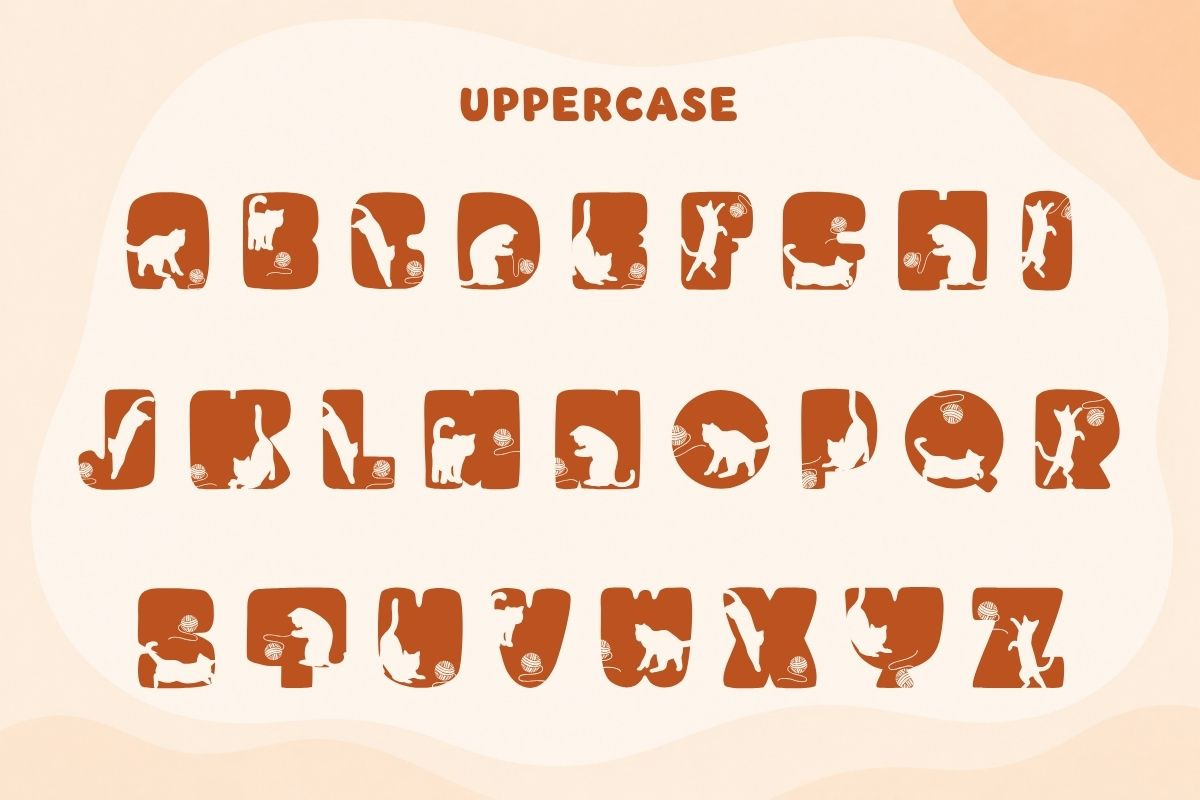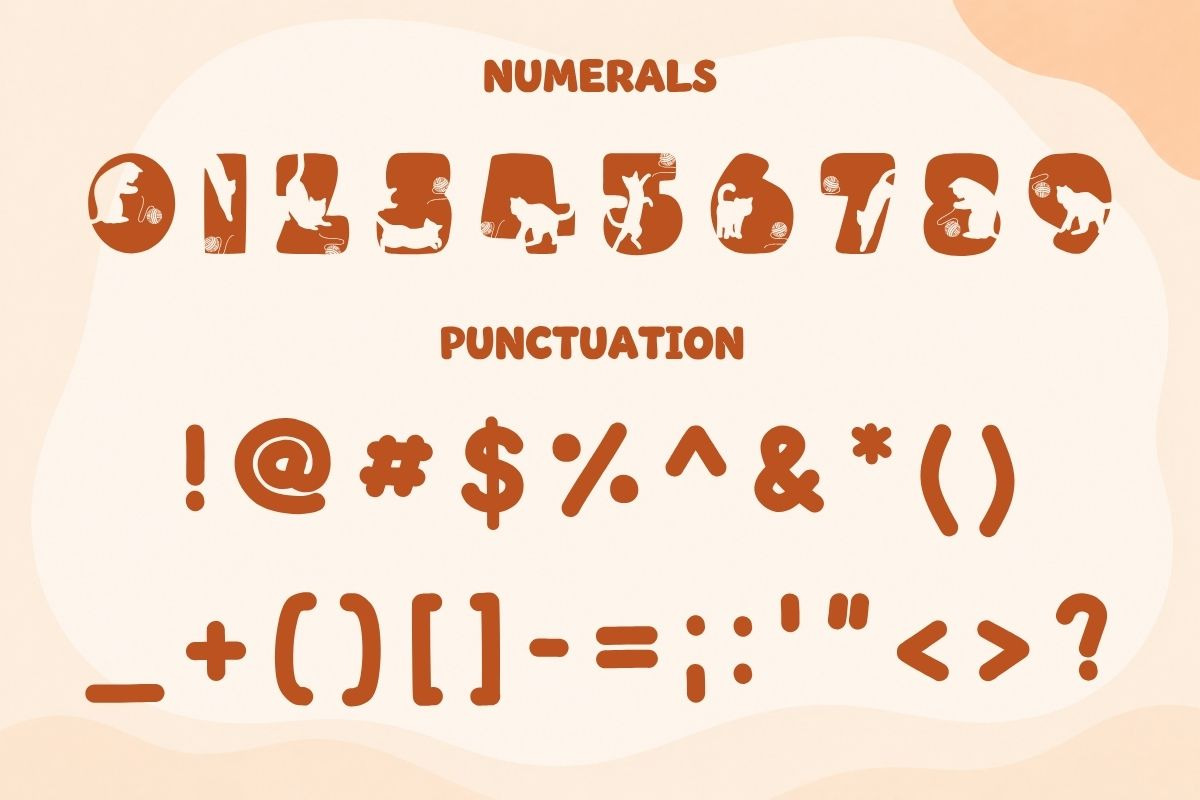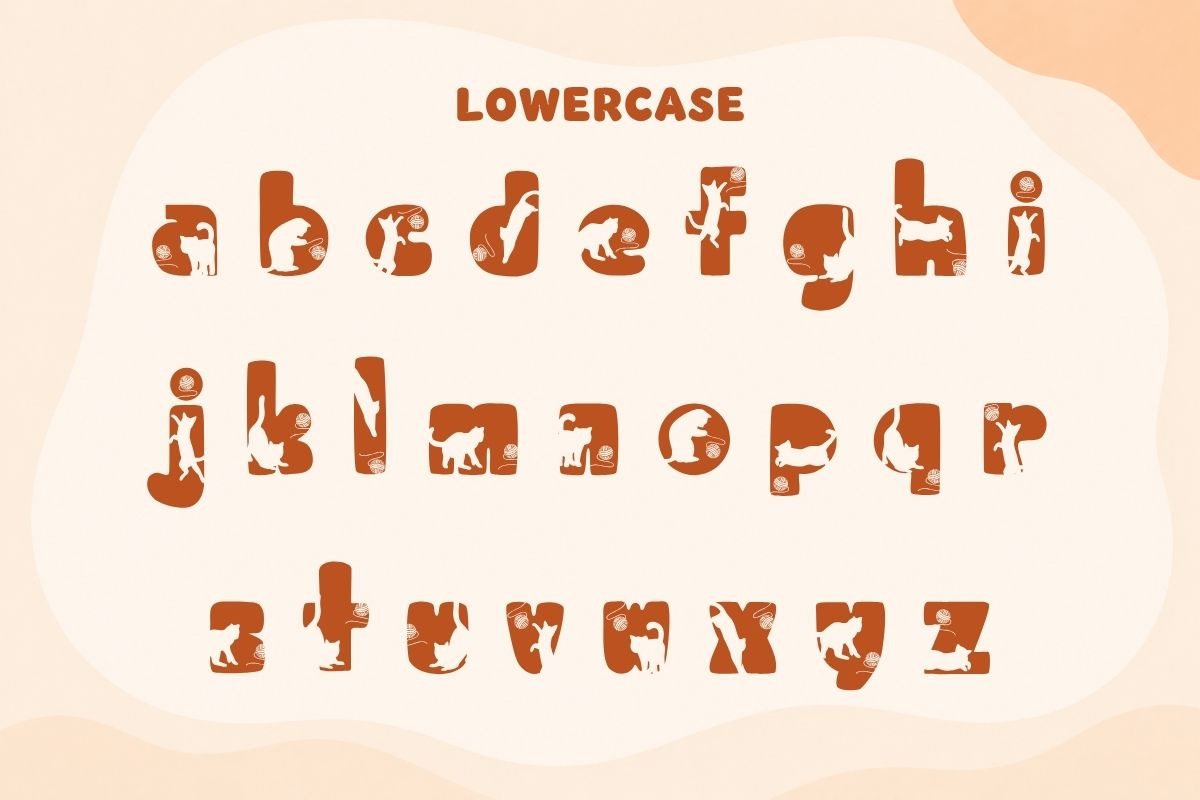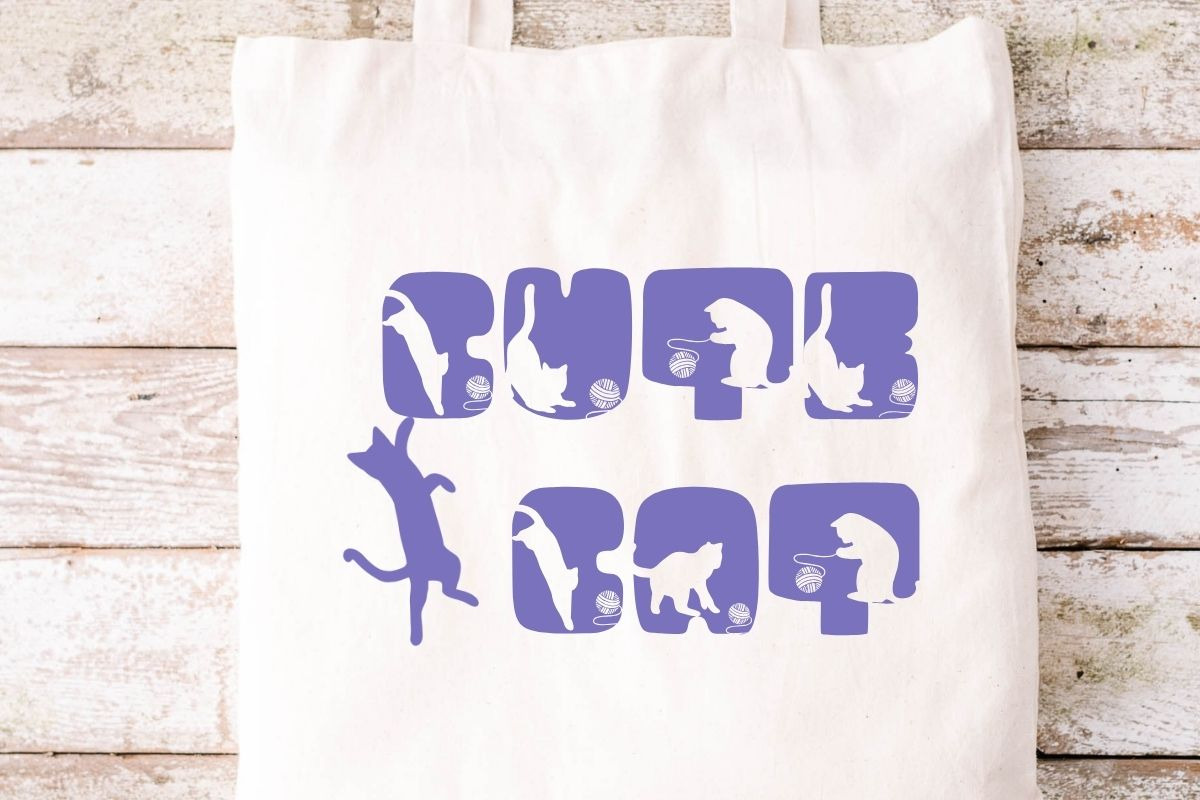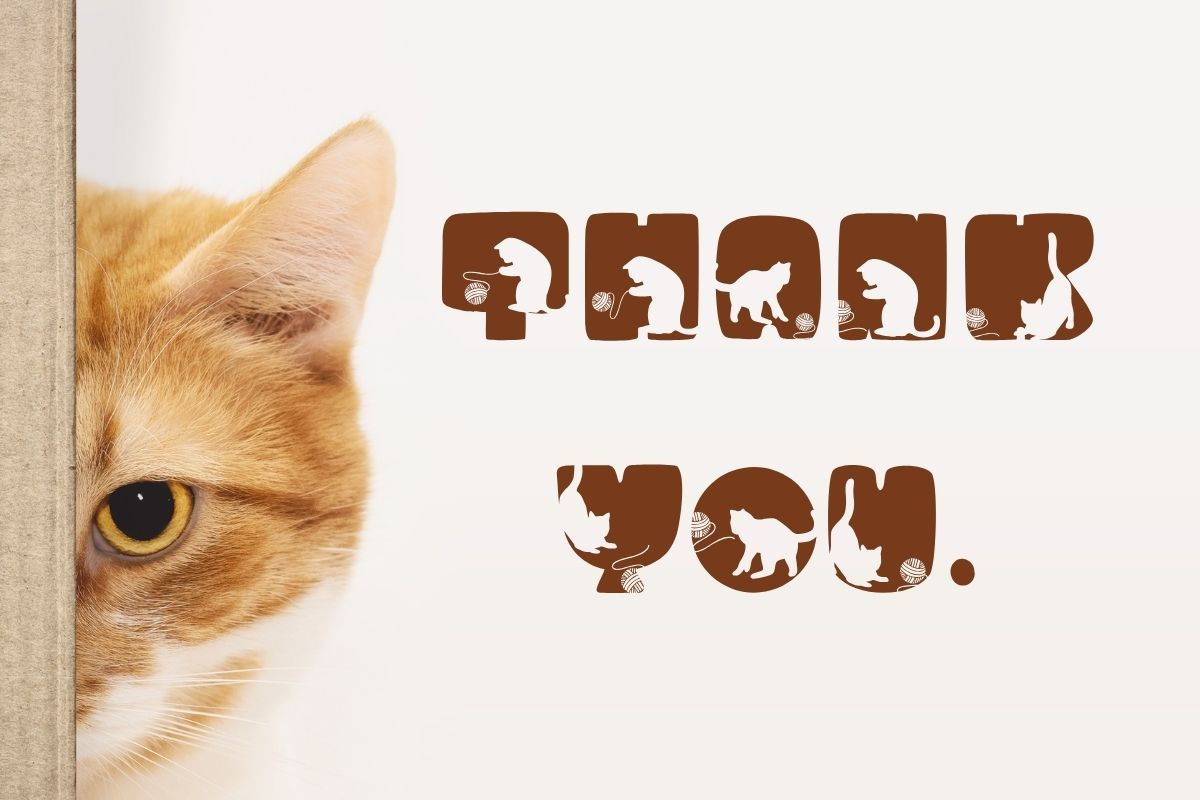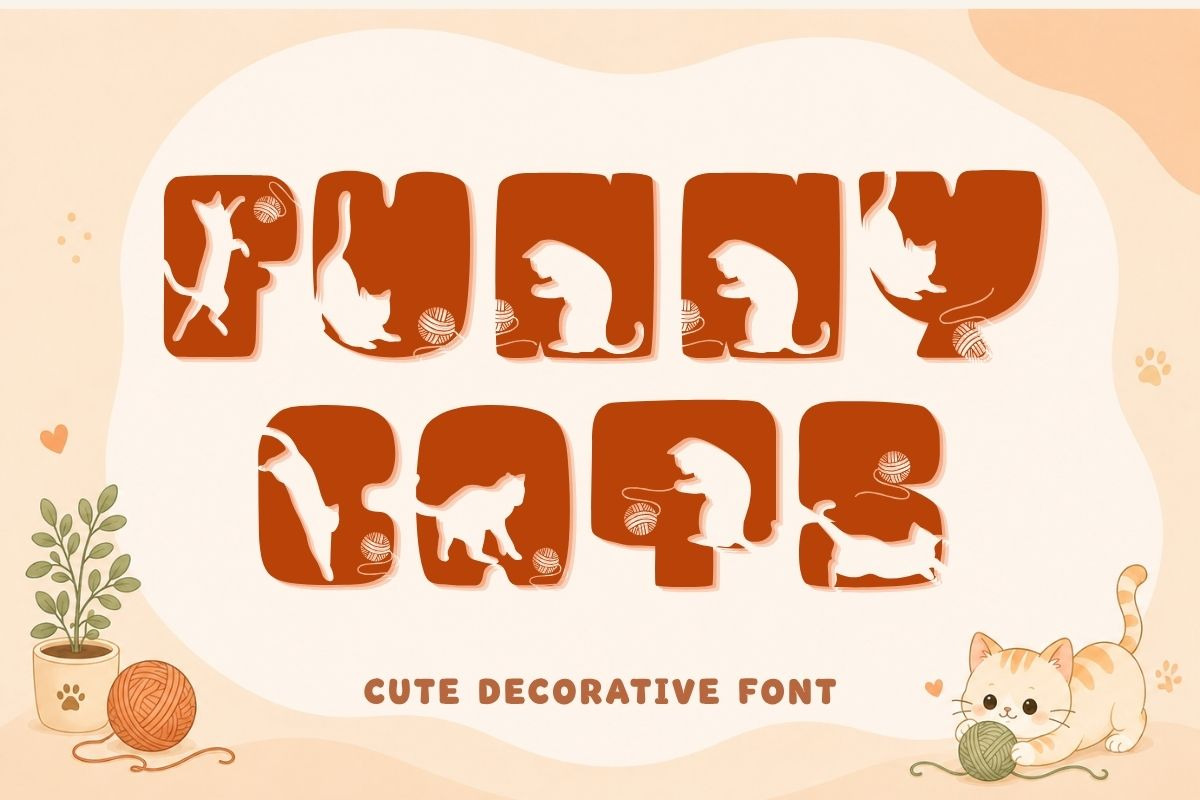
Funny Cats – Cute Decorative Font
Funny Cats is a charming decorative display font inspired by playful cats and cozy yarn. Every character features a unique cat silhouette, creating an adorable handcrafted look that's perfect for animal lovers and creative makers.